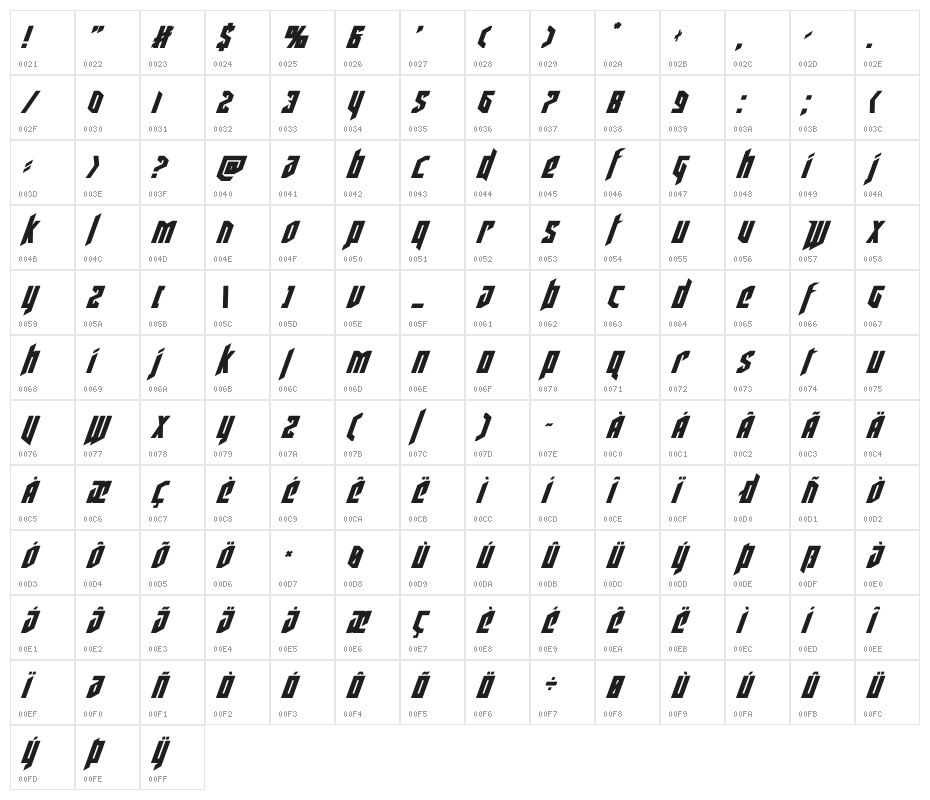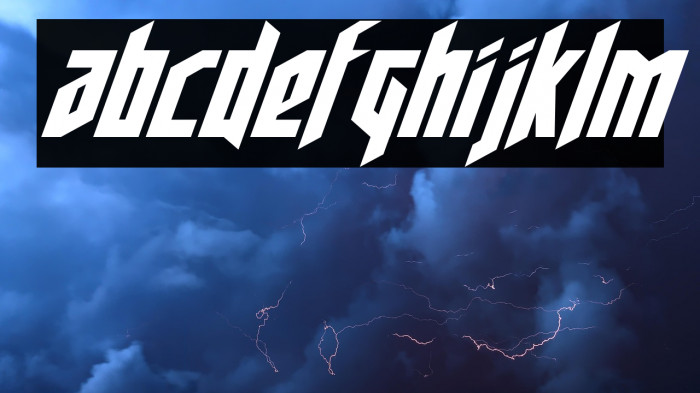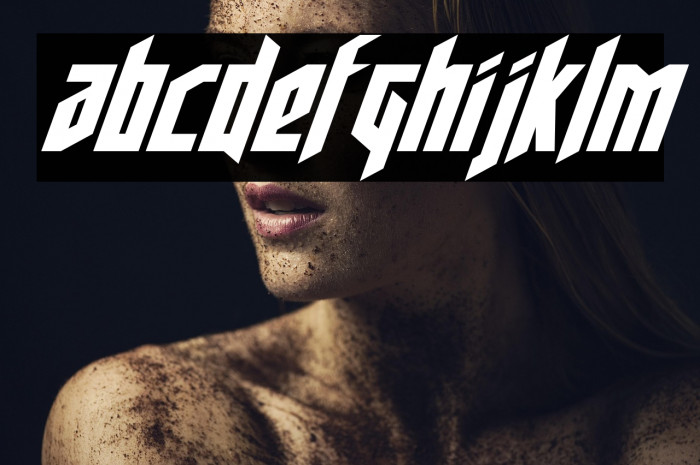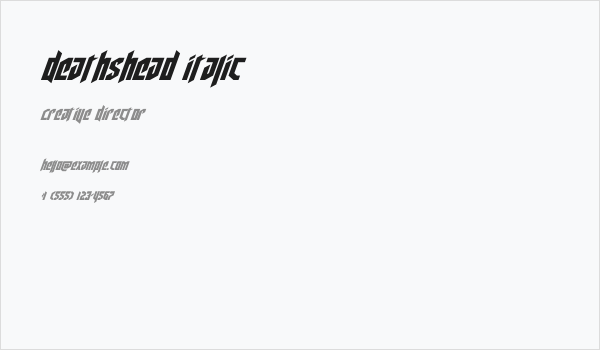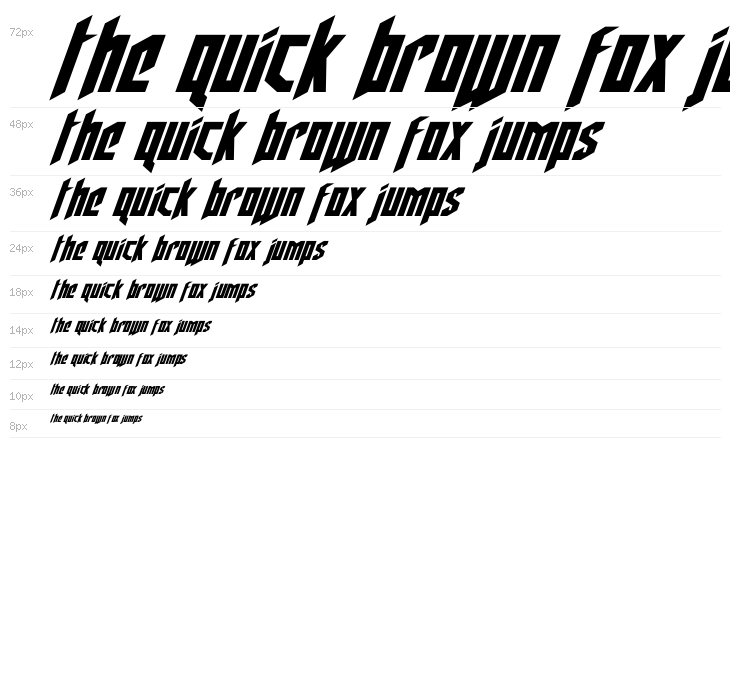
Deathshead Italic Font
Deathshead Italic Description
This font exhibits a bold and aggressive style with sharp, angular lines and a distinct italic slant. The characters are heavily stylized, featuring exaggerated points and edges that give it a dynamic and intense appearance. The uppercase and lowercase letters maintain a consistent design, with a strong emphasis on diagonal strokes. Numbers and special characters follow the same angular theme, ensuring uniformity across all glyphs. The overall aesthetic is reminiscent of a futuristic or industrial design, making it stand out with its unique and striking presence.
| Overall Style | Modern, Futuristic |
| Proposed Projects | Ideal for use in video game titles, movie posters, branding for extreme sports, or any project requiring a bold and edgy look. |